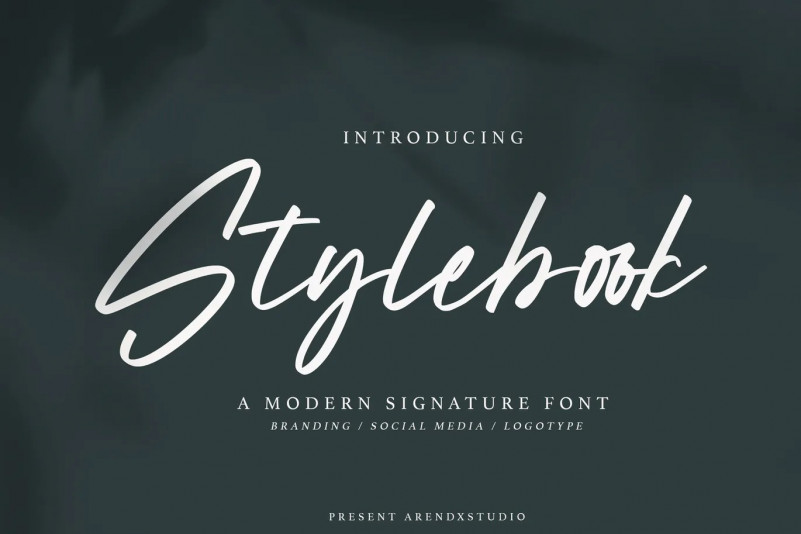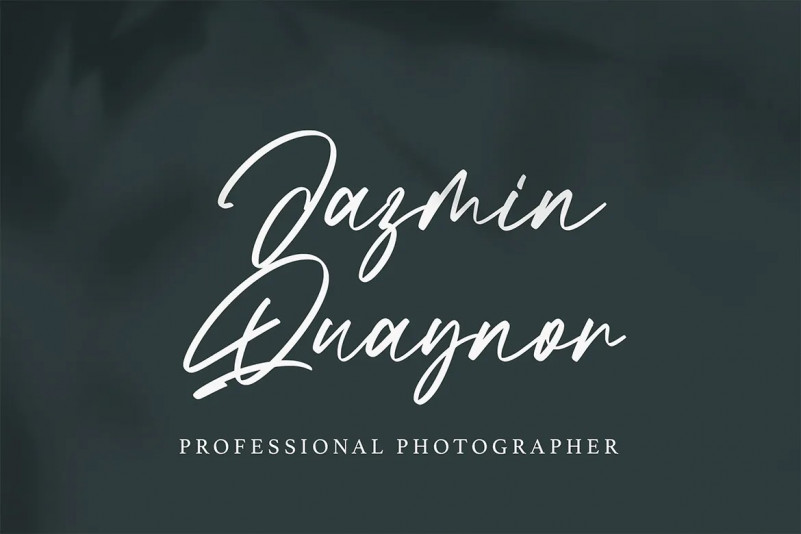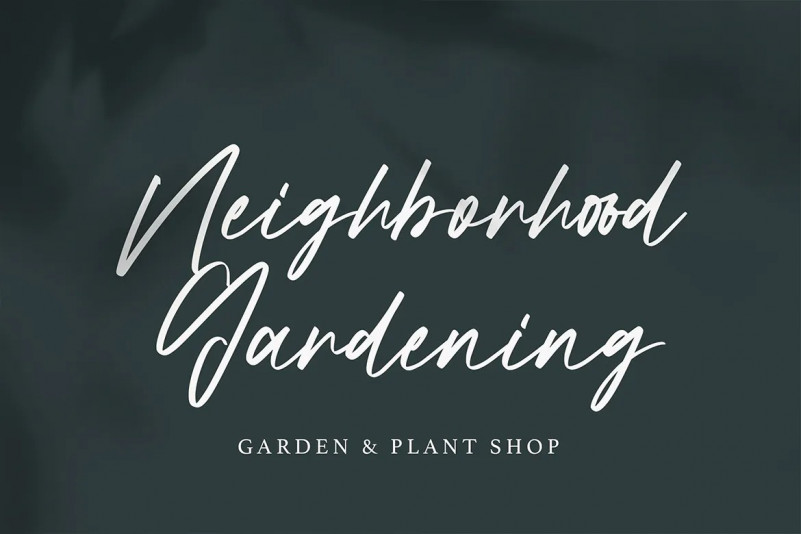
Stylebook Font
Stylebook – Modern Signature Font that has a distinctive character that is very thick and elegant to use
Stylebook is a relaxed and flowing Handwritten Font. Incredibly versatile, this font fits a wide pool of designs, elevating them to the highest levels. Add this font to your favorite creative ideas and notice how it makes them come alive!